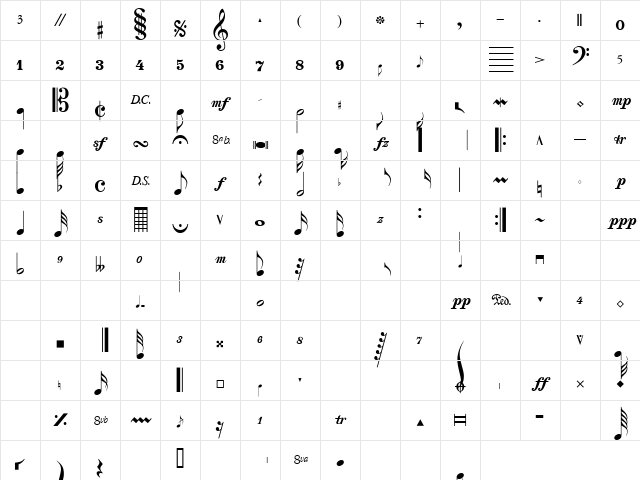
Sax n' Violins SSi Regular
Design Context for Sax n' Violins SSi Typeface
Sax n' Violins SSi is a composed and adaptable typeface that performs quietly and consistently across a wide range of design contexts.